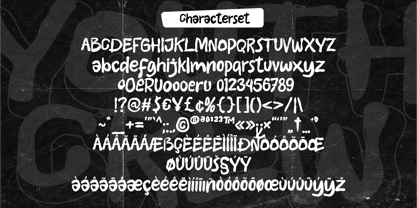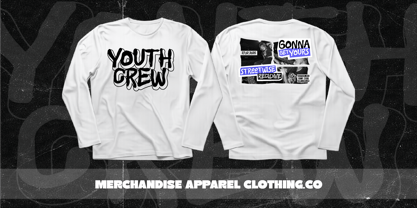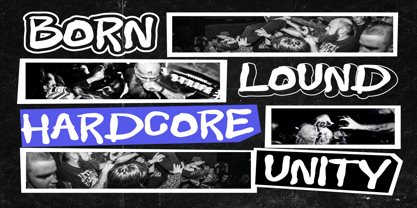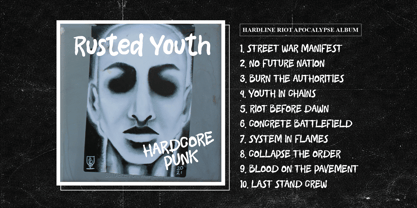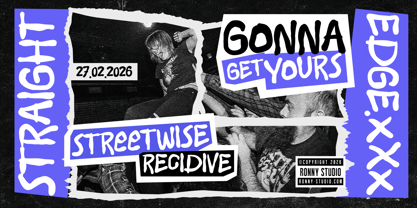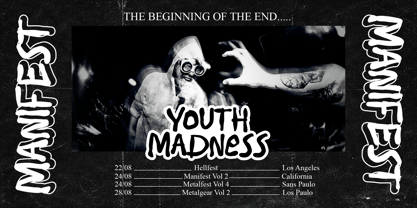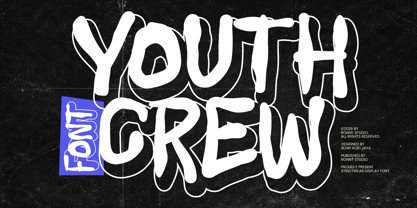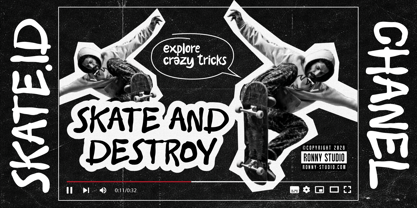
Youth Crew
by Ronny Studio
The Youth Crew Font Family was designed by Rony Rizki Jaya and published by Ronny Studio. Youth Crew contains 1 styles. More about this family
Youth Crew is a bold graffiti street font inspired by the raw energy of hardcore shows, skate culture, underground zines, and rebellious youth movements. Designed with expressive strokes and an unapologetic attitude, this typeface captures the spirit of street culture and DIY creativity. Every letterform carries a handcrafted feel, giving your designs an authentic urban aesthetic. Youth Crew is made to stand out—loud, dynamic, and full of personality. Whether you're creating artwork for music, fashion, or street-inspired branding, this font brings a powerful visual impact. This typeface works perfectly for projects that need strong character and underground energy. From streetwear branding to music posters, Youth Crew delivers a bold and expressive voice that commands attention. Perfect for: • Streetwear and apparel branding • Punk, hardcore, and metal band merchandise • Album covers and gig posters • Urban logos and bold typography • Skate culture visuals and youth-inspired designs Youth Crew is ideal for designers who want to bring authentic street attitude and rebellious creativity into their work. Bring the spirit of underground culture into your designs with Youth Crew.
Designers: Rony Rizki Jaya
Foundry: Ronny Studio